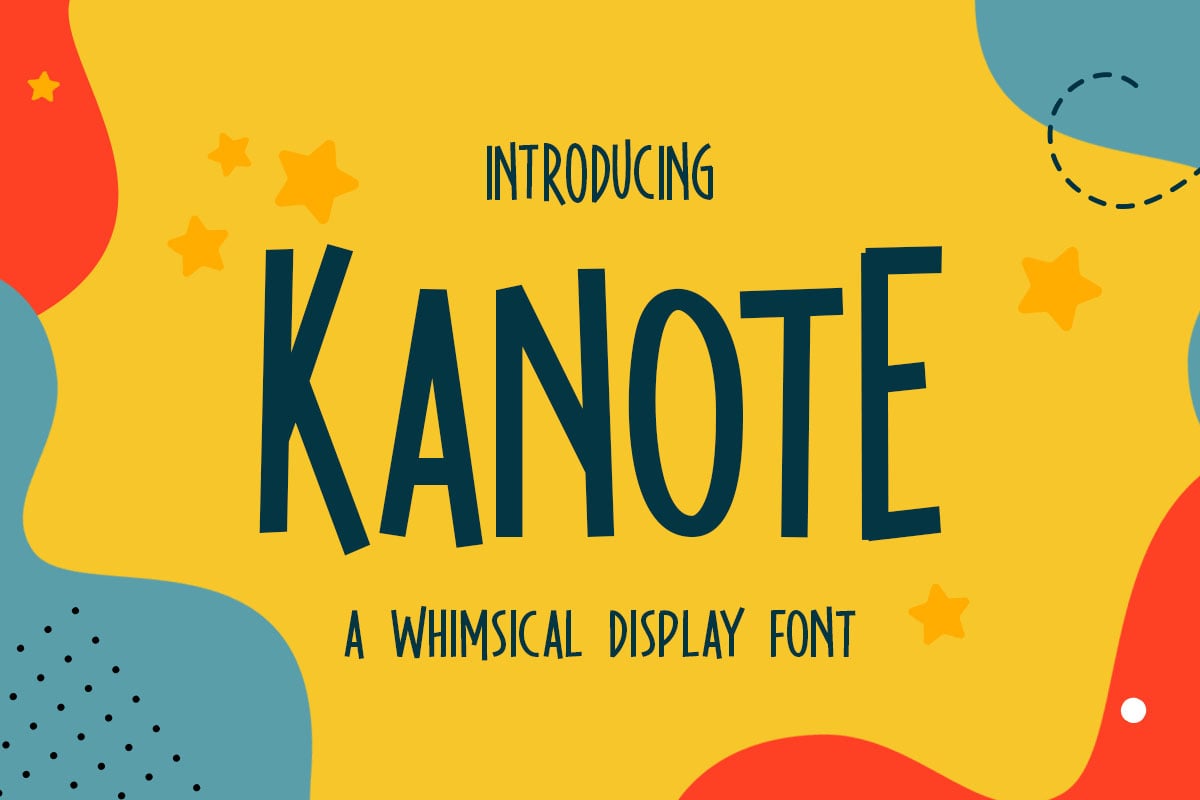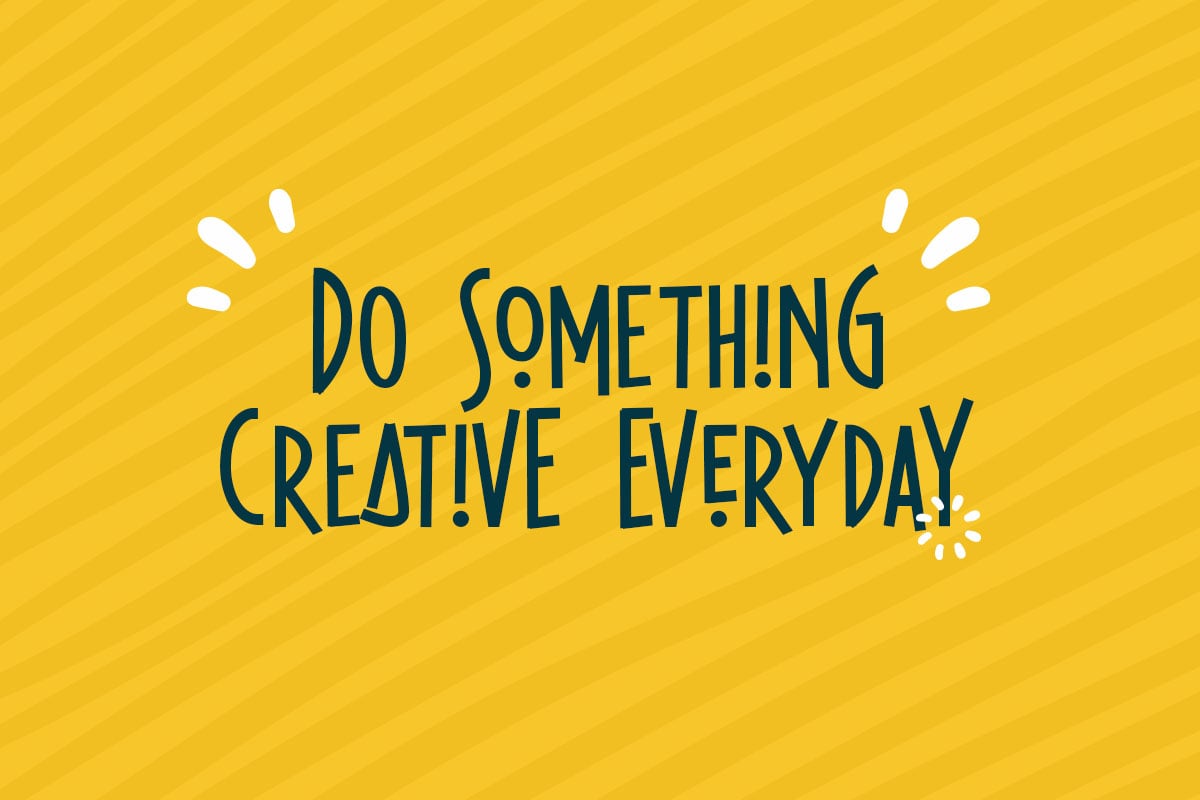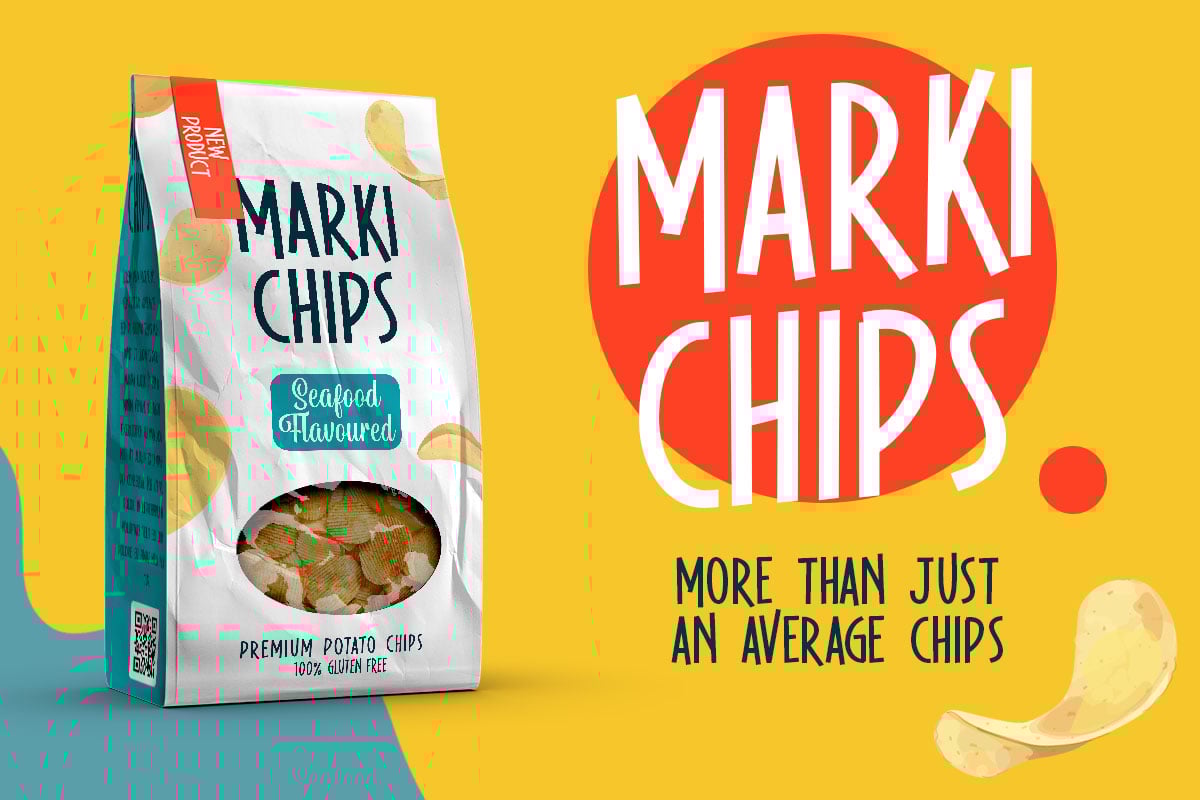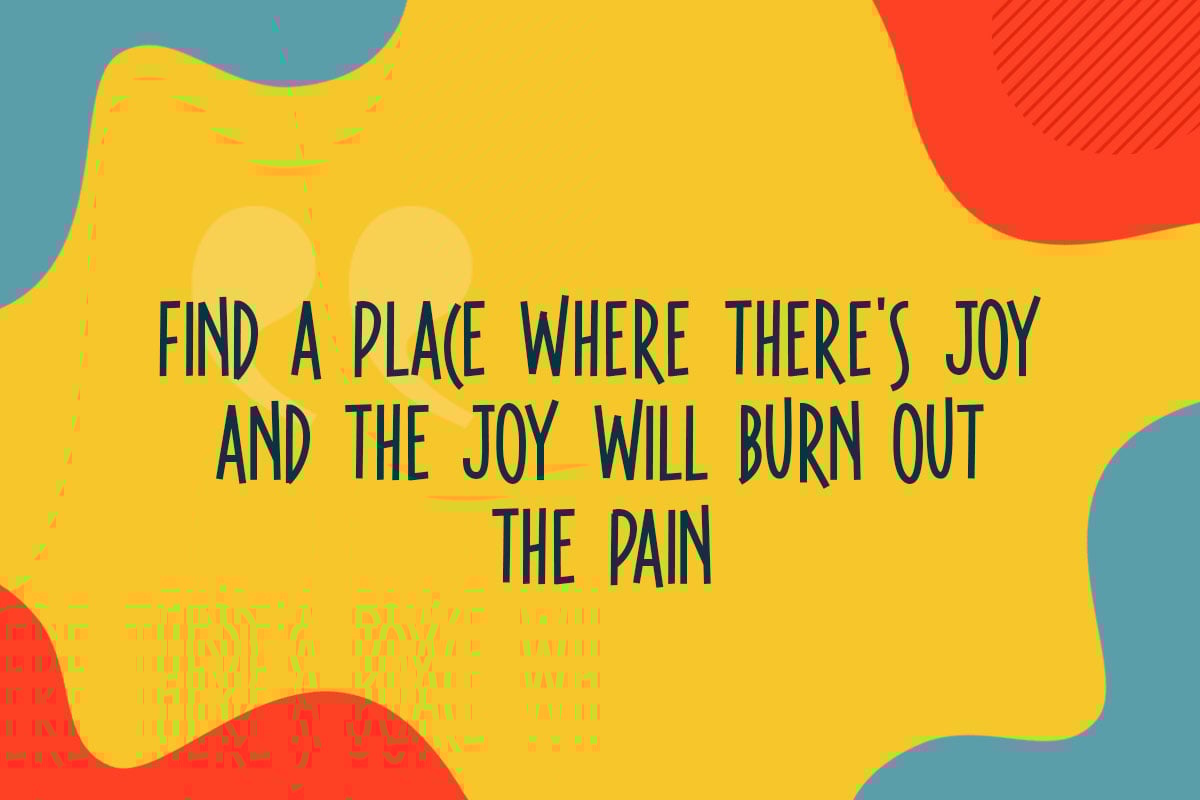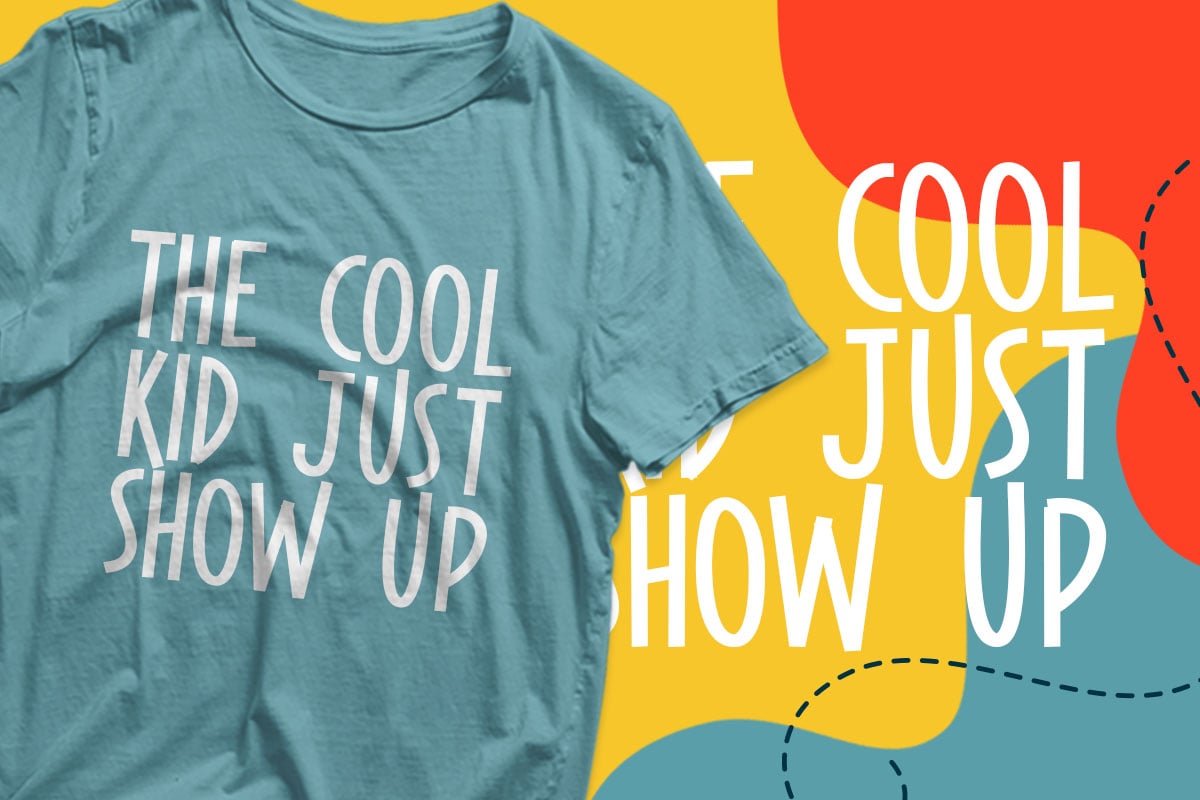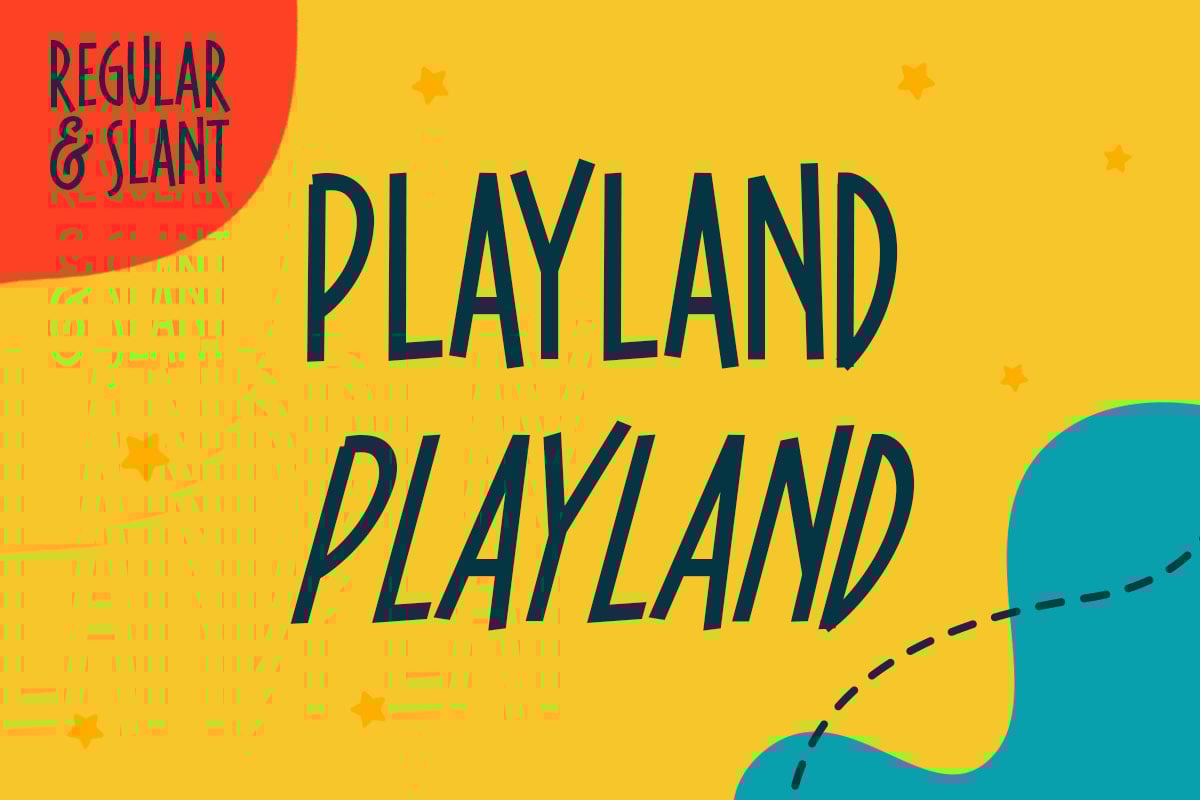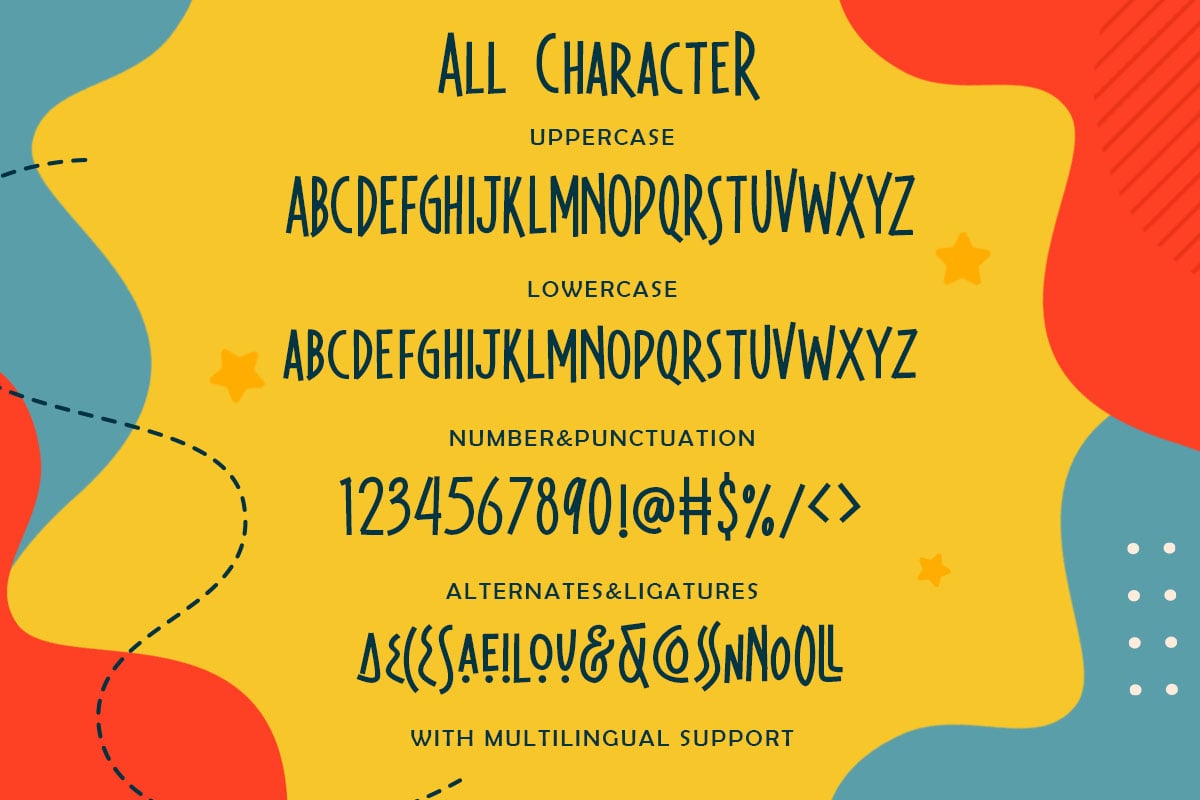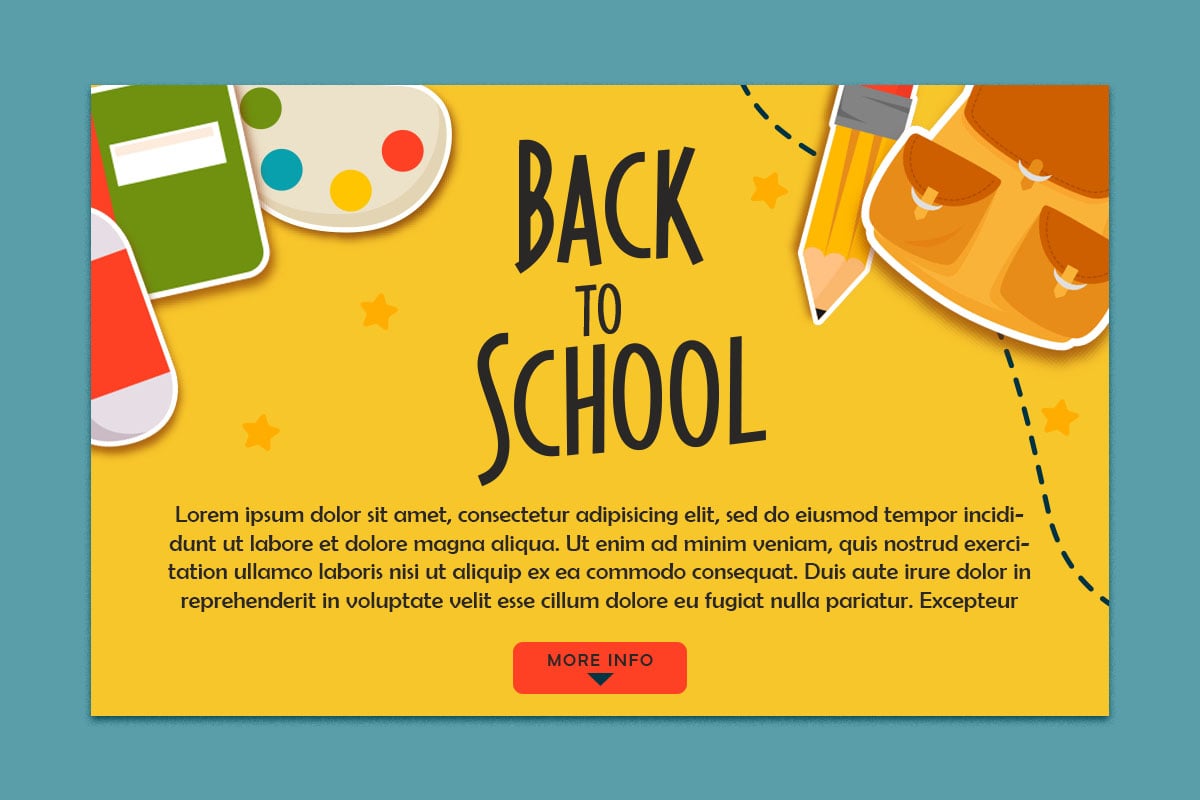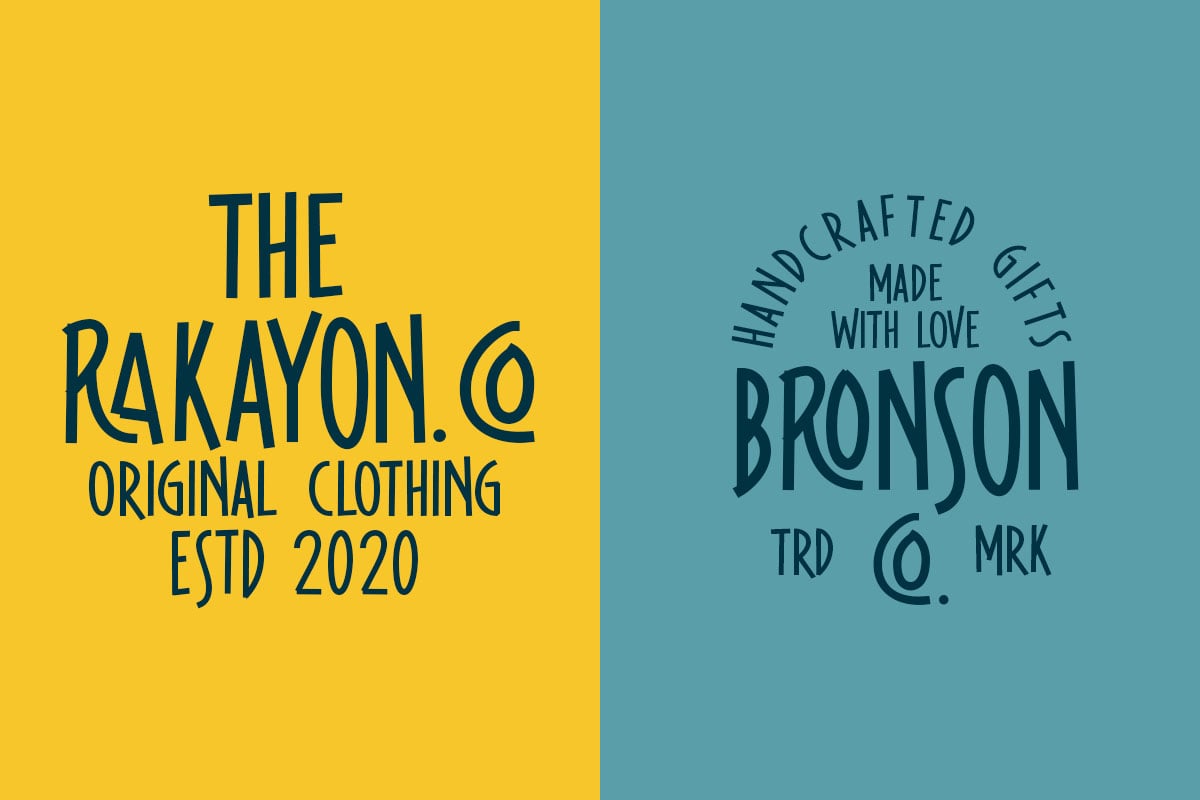
Kanote – Whimsical Display Font
Introducing,Kanote. A Whimsical display font. This typeface is have a playful and casual look, very suitable to use for headline, title, logo or anything especially related with fun themed design project.
- uppercase & lowercase (alternates)
- numbers and punctuation
- multilingual